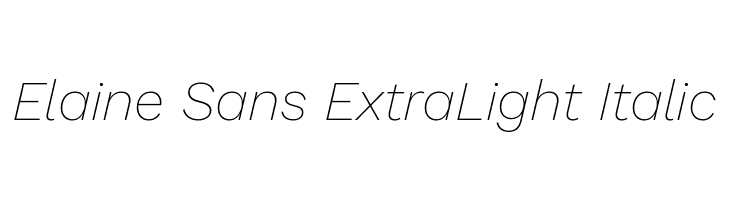
A modern, extra light, italic sans-serif font with a sleek and elegant design.
A modern sans-serif font with an elegant italic slant and clean lines.
A sleek, modern sans-serif font with a light, italicized style.
A thin, elegant italic font with modern, elongated letterforms.